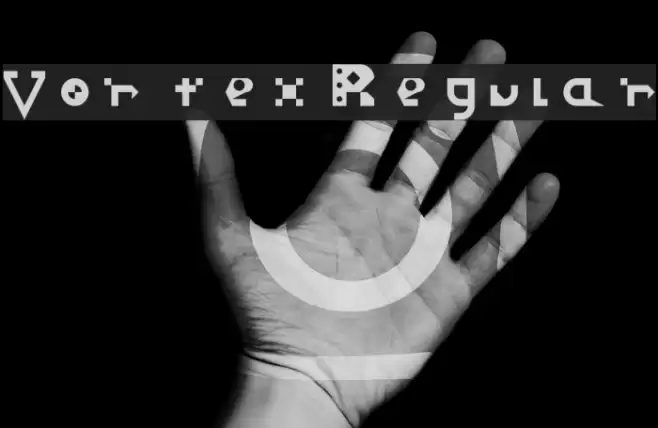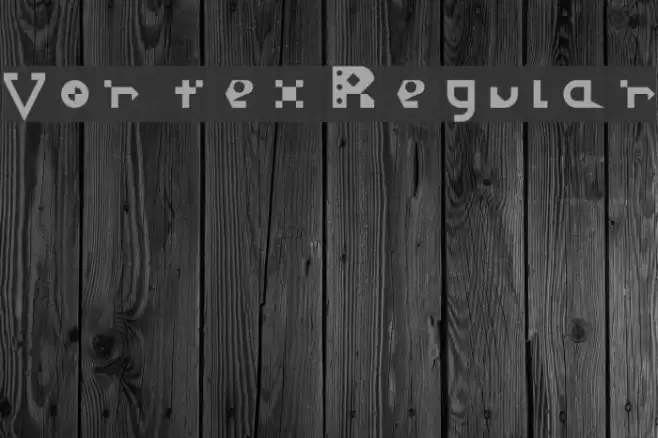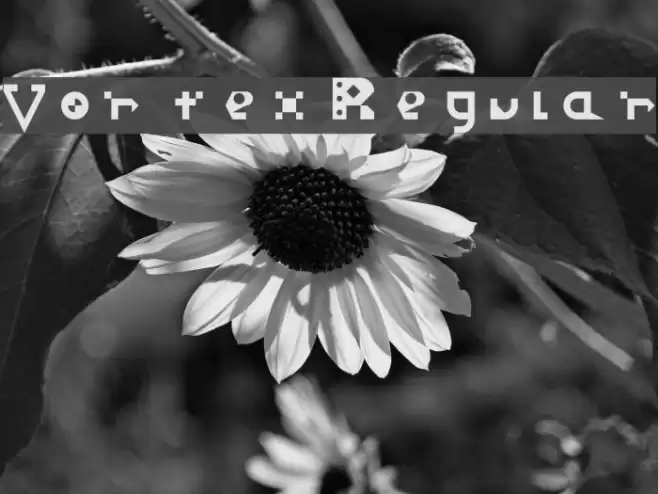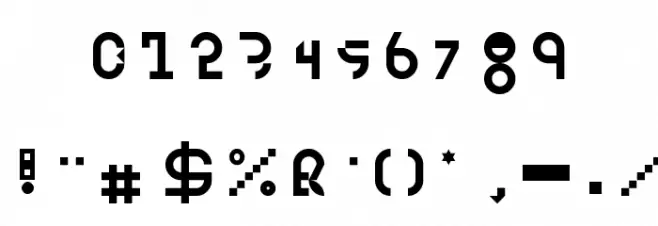
Vortex Regular Font
Vortex Regular Description
This font features a highly geometric and abstract design, characterized by its use of bold, angular shapes and cut-out sections within each character. The letters are composed of solid blocks with strategic negative spaces, giving them a futuristic and digital appearance. The uppercase and lowercase letters maintain a consistent style, with the lowercase being slightly more rounded. Numbers and special characters follow the same design principles, ensuring a cohesive look across all glyphs. The font's unique style makes it stand out, ideal for projects that require a modern and edgy aesthetic.
A bold, geometric font with abstract, futuristic design elements from Uncategorized fonts.
- Proposed Projects: Ideal for sci-fi themed projects, video game titles, tech branding, and modern posters.